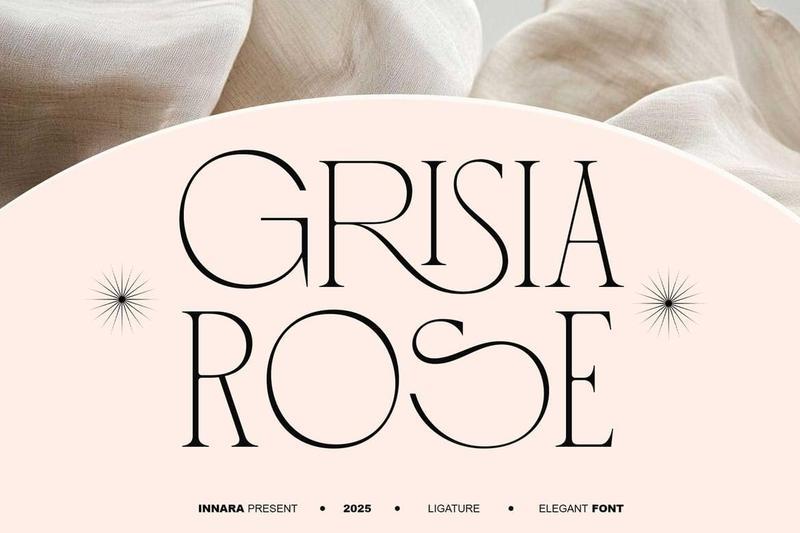
**Grisia Rose** is a serif font that beautifully combines simplicity, elegance, and modern style into one harmonious typeface. With its thin, refined letterforms, Grisia Rose delivers a sense of luxury and sophistication, making it the perfect choice for designers who value attention to detail and timeless beauty.
Every character is thoughtfully crafted to look graceful and stylish, yet light and easy on the eyes. To enhance its versatility, Grisia Rose also comes with a range of alternative glyphs, giving you the creative freedom to design typography that feels truly unique, expressive, and personal.
This font is especially well-suited for fashion branding, magazine headlines, premium invitations, logos, and luxurious visual identities. Its sleek yet powerful presence ensures that your text will always appear sophisticated, striking, and unforgettable.
If youre looking for a serif font that feels simple yet stylish, elegant yet modern, Grisia Rose is the perfect choice to bring timeless elegance and high-end flair to your design projects.
Feature :
* Uppercase
* Lowercase
* Numeral
* Functional
* Multilingual
* Alternate Glyph
* LigatureGlyph